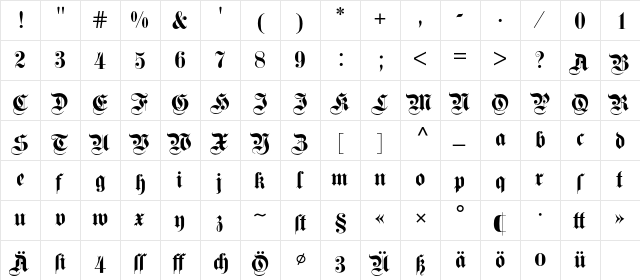
Fette Kanzlei BQ Regular Font Preview
Fette Kanzlei BQ Regular
Fette Kanzlei BQ Regular Font Details
Design Context for Fette Kanzlei BQ Typeface
Fette Kanzlei BQ is a composed and adaptable typeface that performs quietly and consistently across a wide range of design contexts.